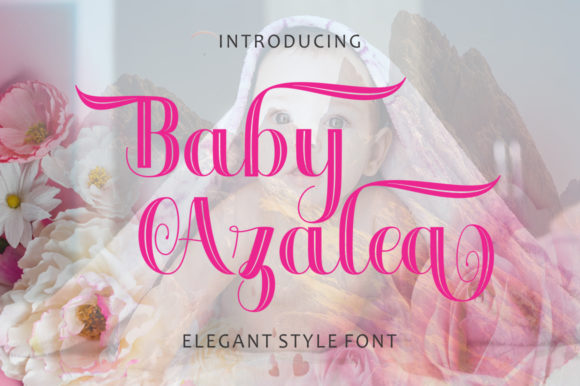
Journey into the realm of elegance and grace with Baby Azalea Font, a script font that will ignite your creativity and leave you spellbound. Its enchanting handwritten style dances across the page, evoking a sense of intimacy and charm that's perfect for crafting heartfelt wedding proposals, enchanting digital designs, and captivating presentations.
Immerse yourself in the world of Baby Azalea, where every letter is a work of art, meticulously crafted to convey emotions and leave a lasting impression. Its fluid strokes and delicate flourishes add a touch of whimsy and romance, making it the perfect choice for creating unforgettable wedding invitations, save-the-dates, and heartfelt love letters.
With its PUA encoding, Baby Azalea grants you effortless access to a treasure trove of glyphs and swashes, empowering you to unleash your imagination and create designs that captivate and inspire. This font is more than just a tool; it's a gateway to a creative wonderland where your artistic vision takes center stage.
Feel the magic of Baby Azalea flow through your designs as you craft stunning greeting cards, heartfelt posters, and eye-catching social media graphics. Its versatility knows no bounds, making it the perfect companion for expressing yourself in countless ways.
Don't let this opportunity pass you by. Embrace the allure of Baby Azalea Font and embark on a creative journey that will leave you mesmerized. Its beauty and charm will add a touch of magic to your designs, leaving a lasting impression on all who behold them.